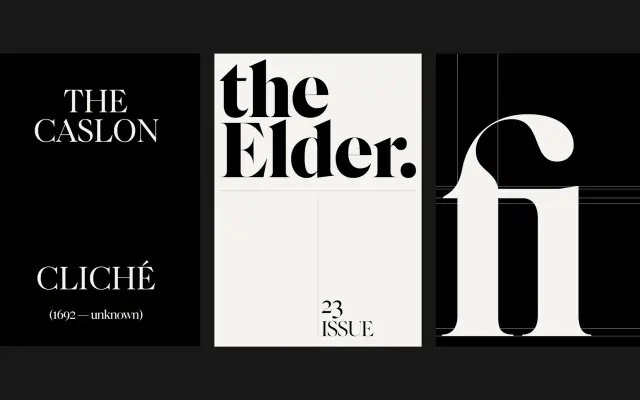
F37 Caslon
F37's display reworking of William Caslon I's eighteenth century serif, with a Condensed companion and matching italics.
A display weight Caslon family of sixteen styles. Four weights run from Regular to ExtraBold with matching italics, and a Condensed cut runs across the same four weights and italics for tighter measures. Sits alongside F37 Caslon Text and F37 Caslon Hairline, which extend the system into smaller text settings and a hairline display register. Useful in fashion, editorial and luxury identity work where you want a recognisable Caslon voice without the dated contours of the original.
F37 describe F37 Caslon as their personal take on a stone-cold classic. The family is a contemporary reworking of William Caslon I's eighteenth century old-style serif, drawn with display proportions and a Condensed companion.